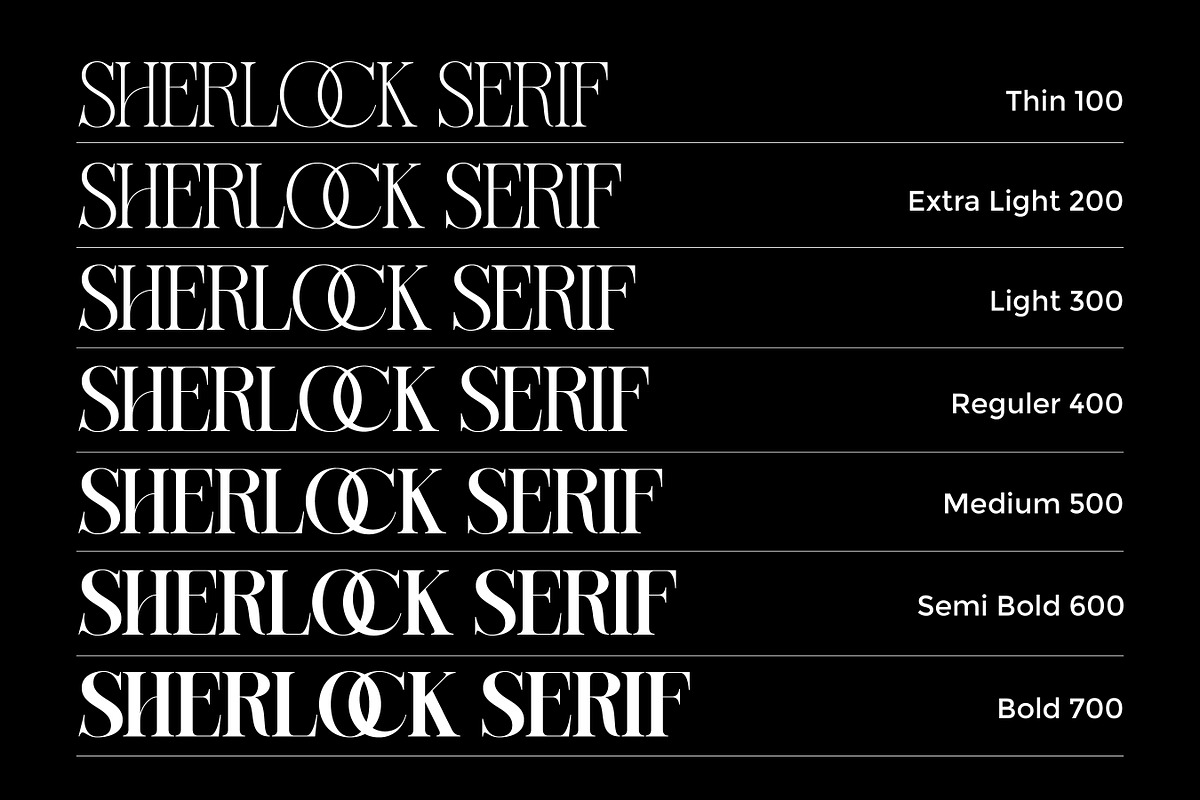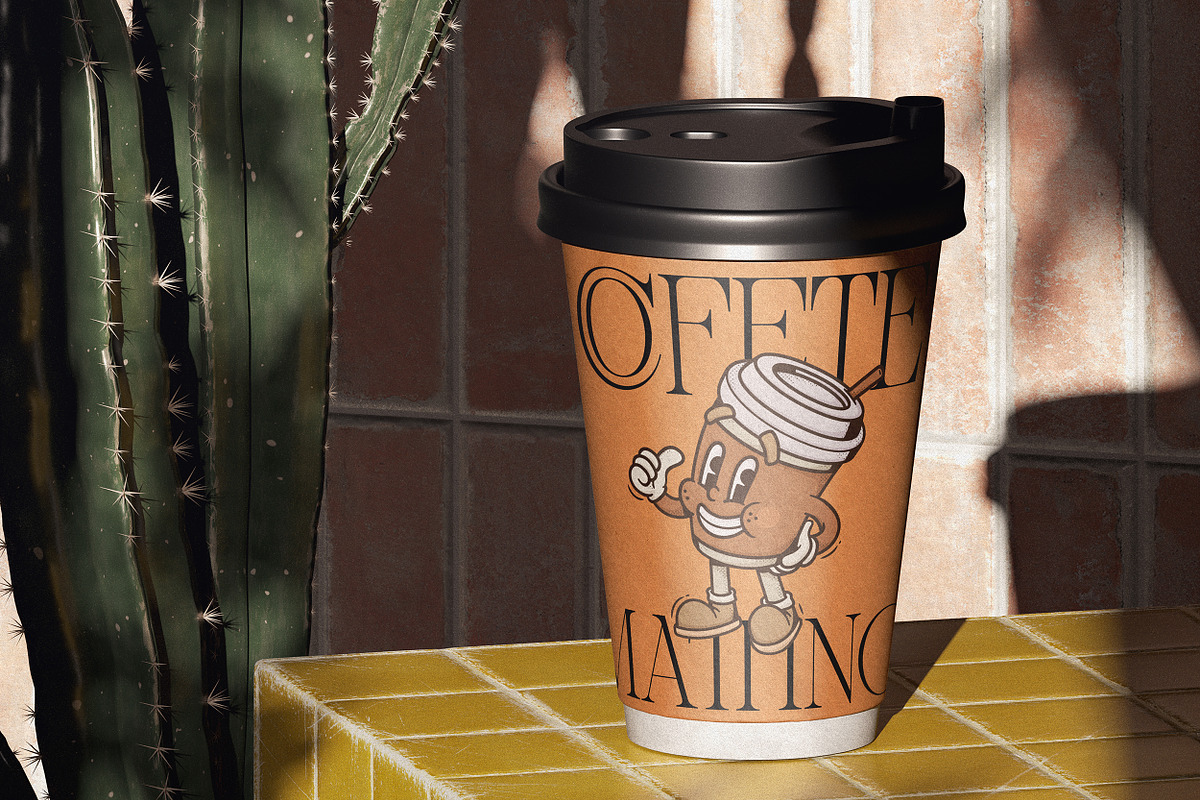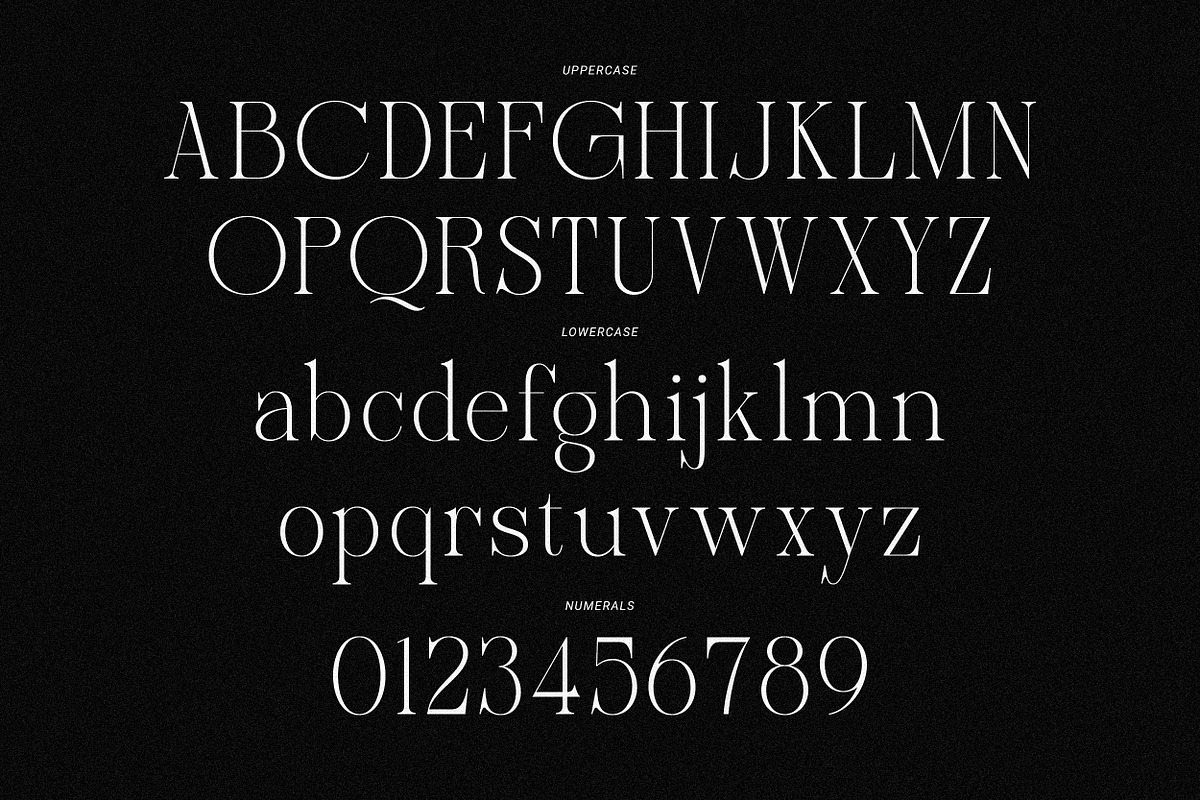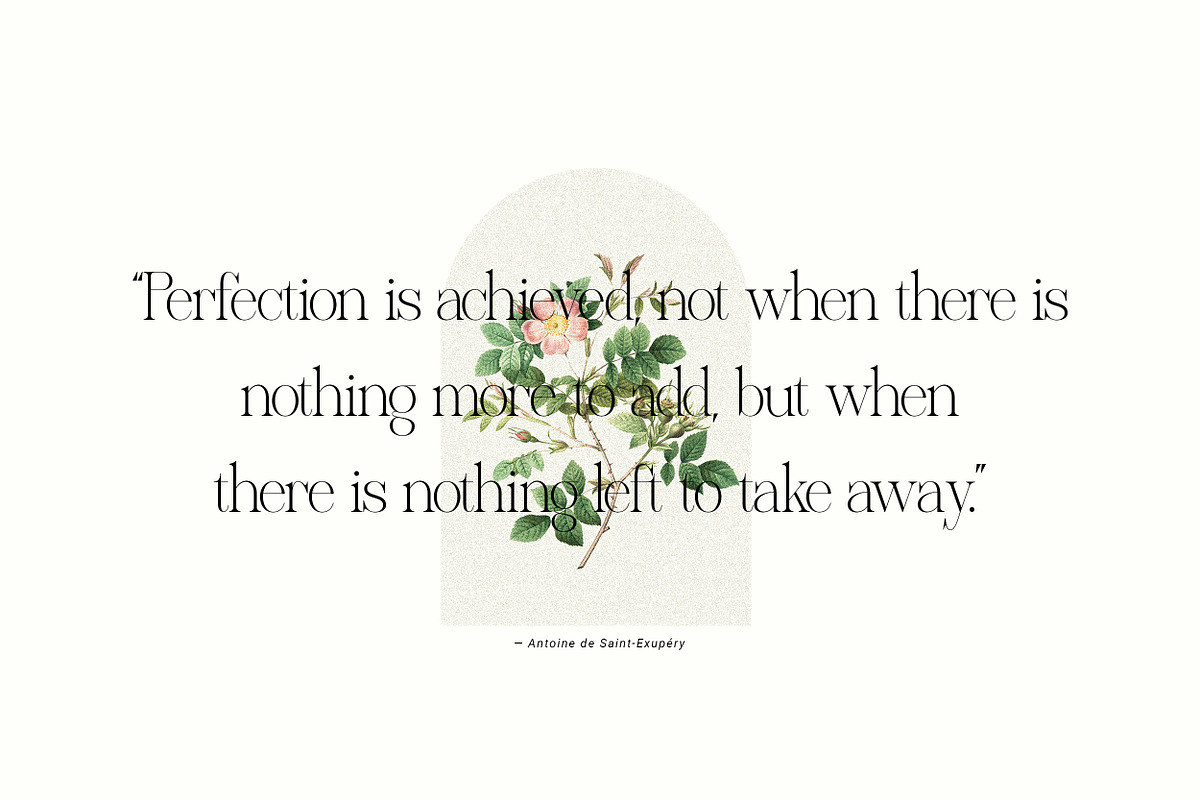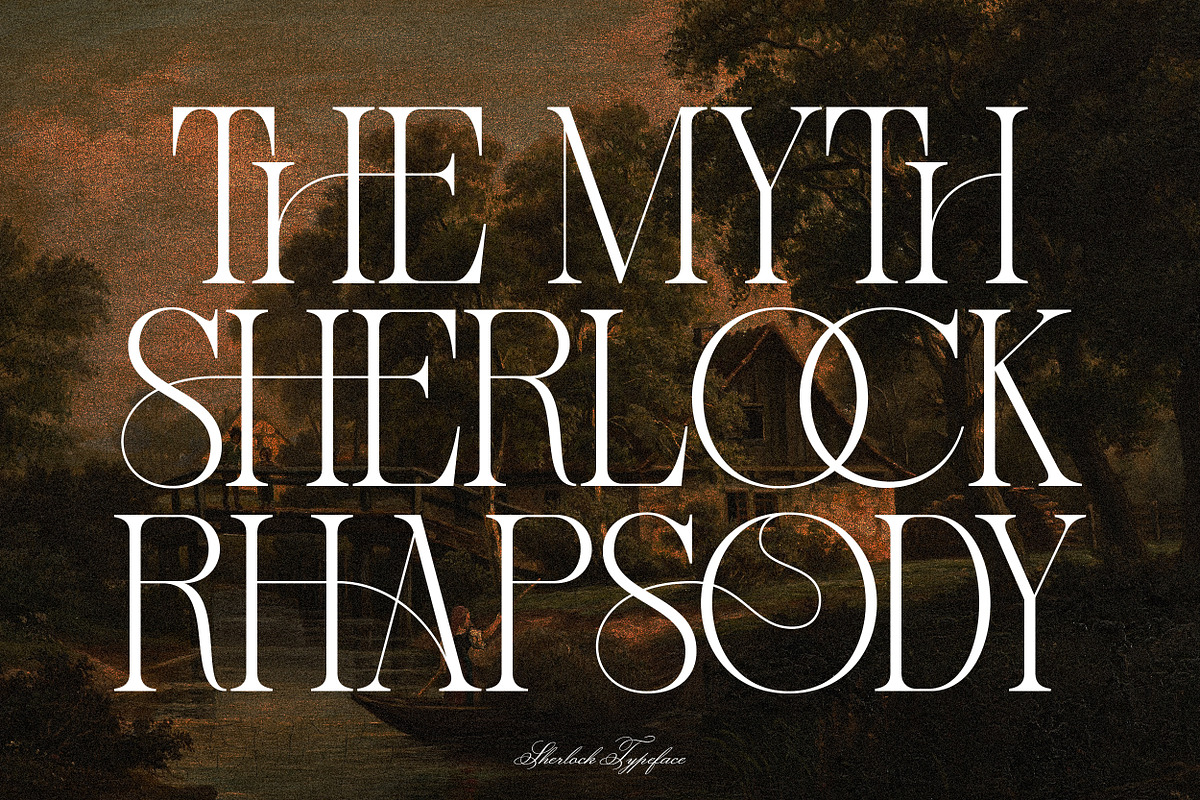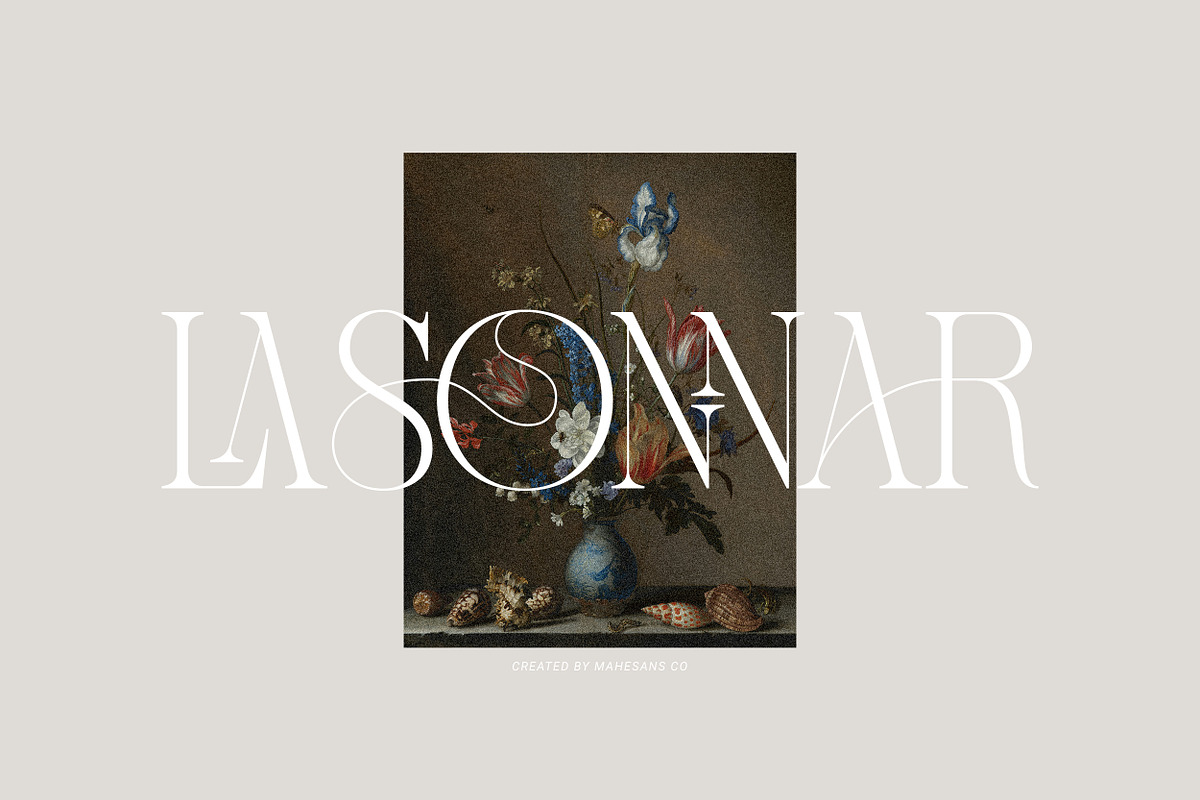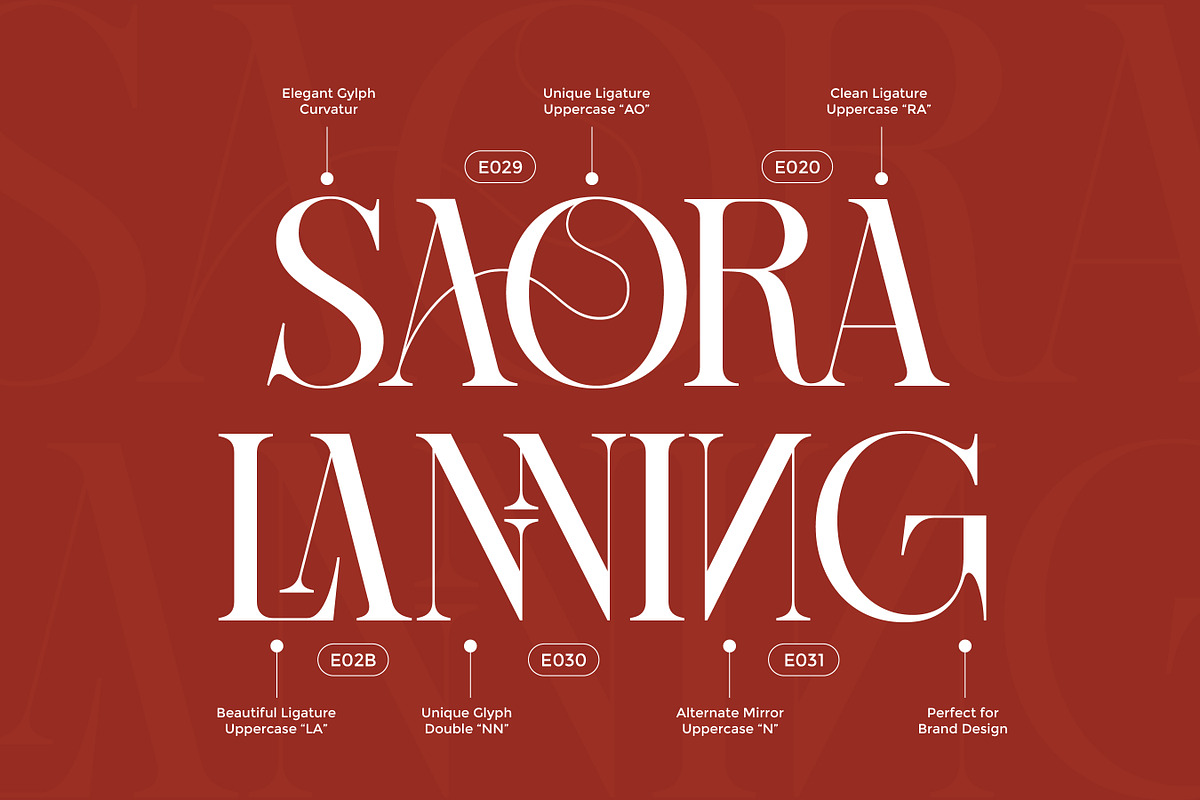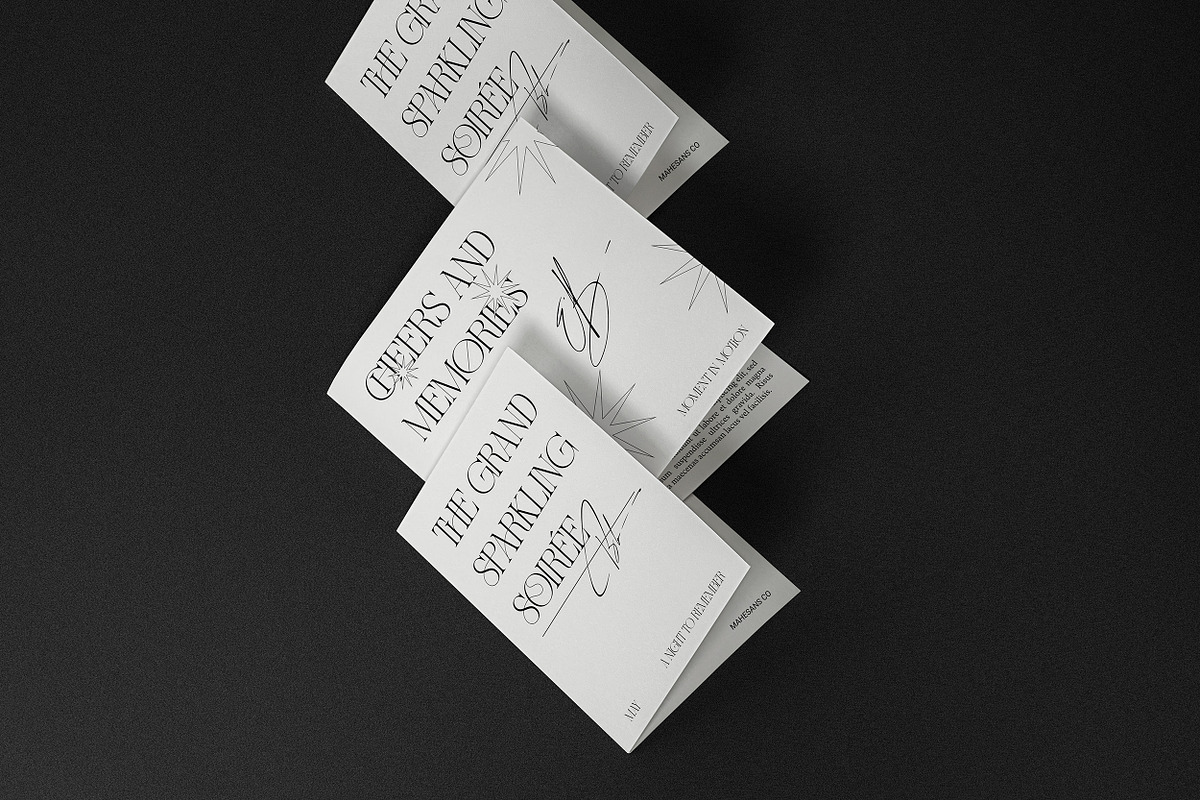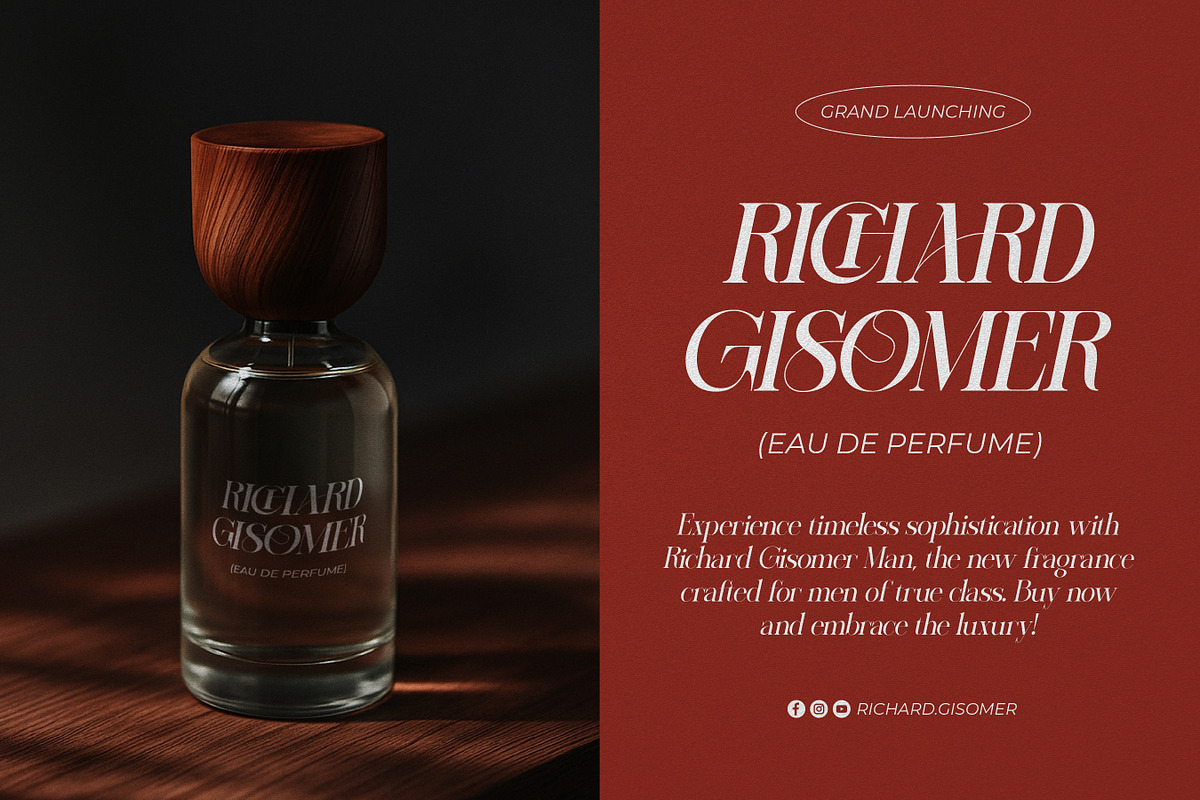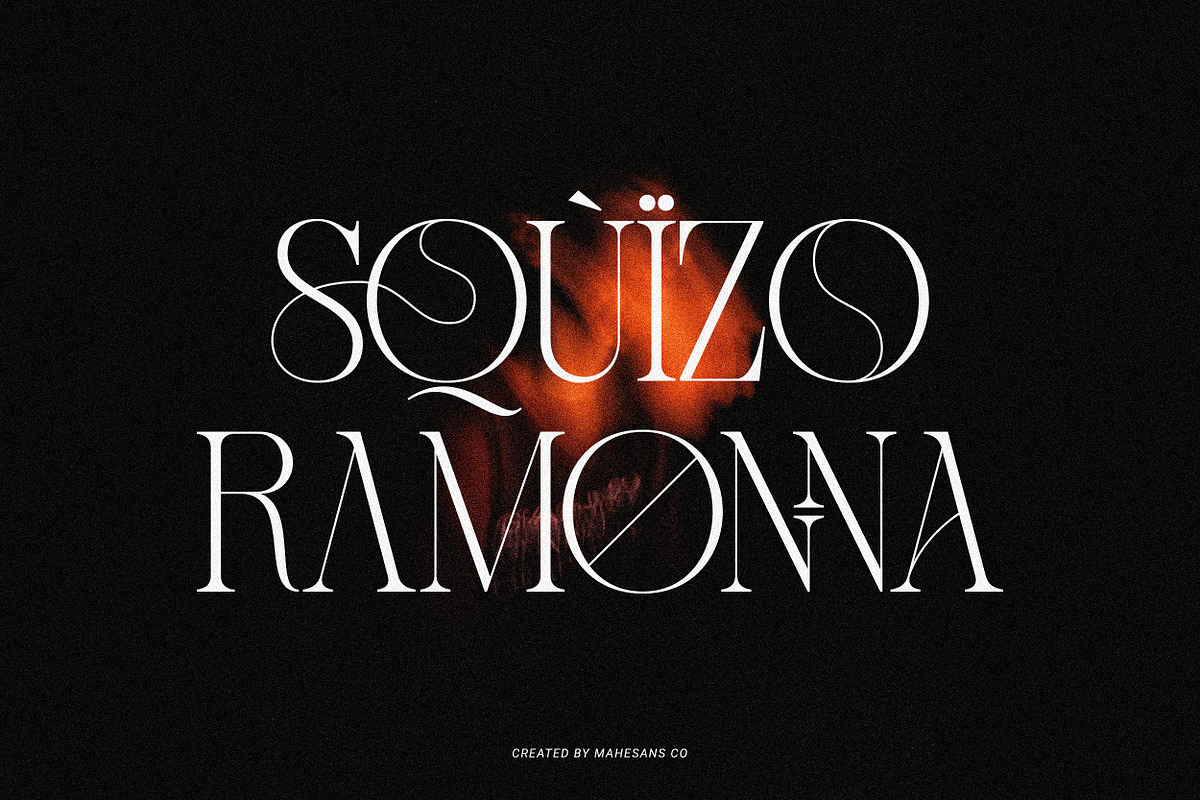
Sherlock Serif Family (126 Fonts)
Sherlock Family (126 Fonts) – The Complete Elegant Serif Collection
Sherlock Family is the grand expansion of the original Sherlock typeface, a refined serif system that blends timeless elegance with a hint of mystery and dramatic classicism. Designed as a fully versatile typographic family, it offers a complete range of weights, widths, and styles, giving you total creative freedom for any visual direction.
Every style within the family preserves Sherlock’s signature DNA: sharp, confident serifs, delicate curves, and a luxurious classic presence. From bold editorial headlines to refined luxury branding, Sherlock Family delivers a strong visual hierarchy and a cohesive, sophisticated identity across every application.
With artistic alternates, expressive ligatures, and meticulously crafted details inspired by vintage book design and classical art, Sherlock Family turns typography into an immersive visual experience, not just lettering.
Family Features:
- 126 Total Styles
- 7 Weights
- 9 Widths
- Italic Series
Sherlock Family isn’t just a font, it’s a complete typographic universe, crafted to bring drama, charm, and everlasting sophistication to every project.